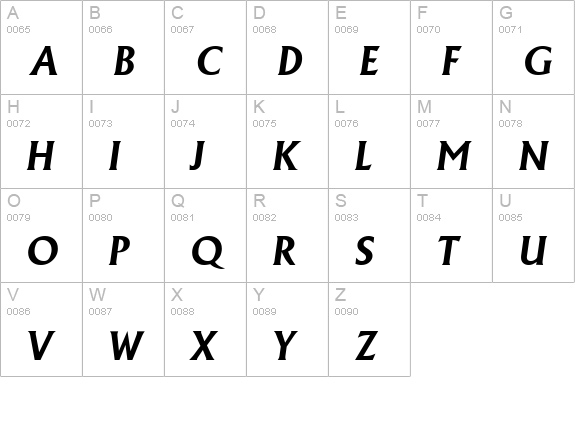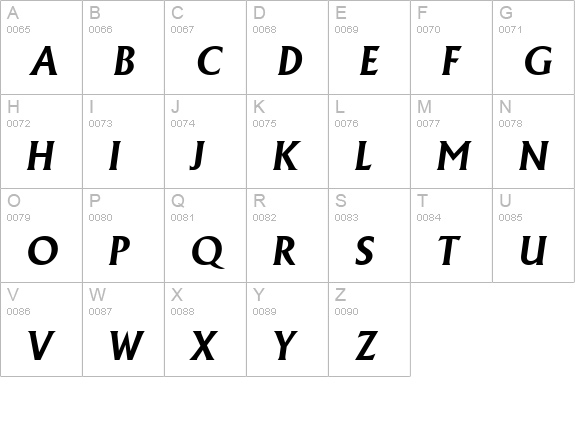
AdelonSerial-BoldItalic is a stylish and versatile font that exudes elegance and sophistication. Its bold and italic design makes it perfect for creating eye-catching designs that stand out. The sleek curves and sharp lines of this font give it a modern yet timeless appeal. What sets AdelonSerial-BoldItalic apart is that it is available for free download at FontsMarket.com. This means that you can easily access this premium font without any cost, making it a valuable addition to your design toolkit. Whether you are working on a branding project, advertising campaign, or any other creative endeavor, AdelonSerial-BoldItalic is sure to elevate your designs with its distinctive flair. Download AdelonSerial-BoldItalic for free today at FontsMarket.com and take your designs to the next level with this elegant and striking font.